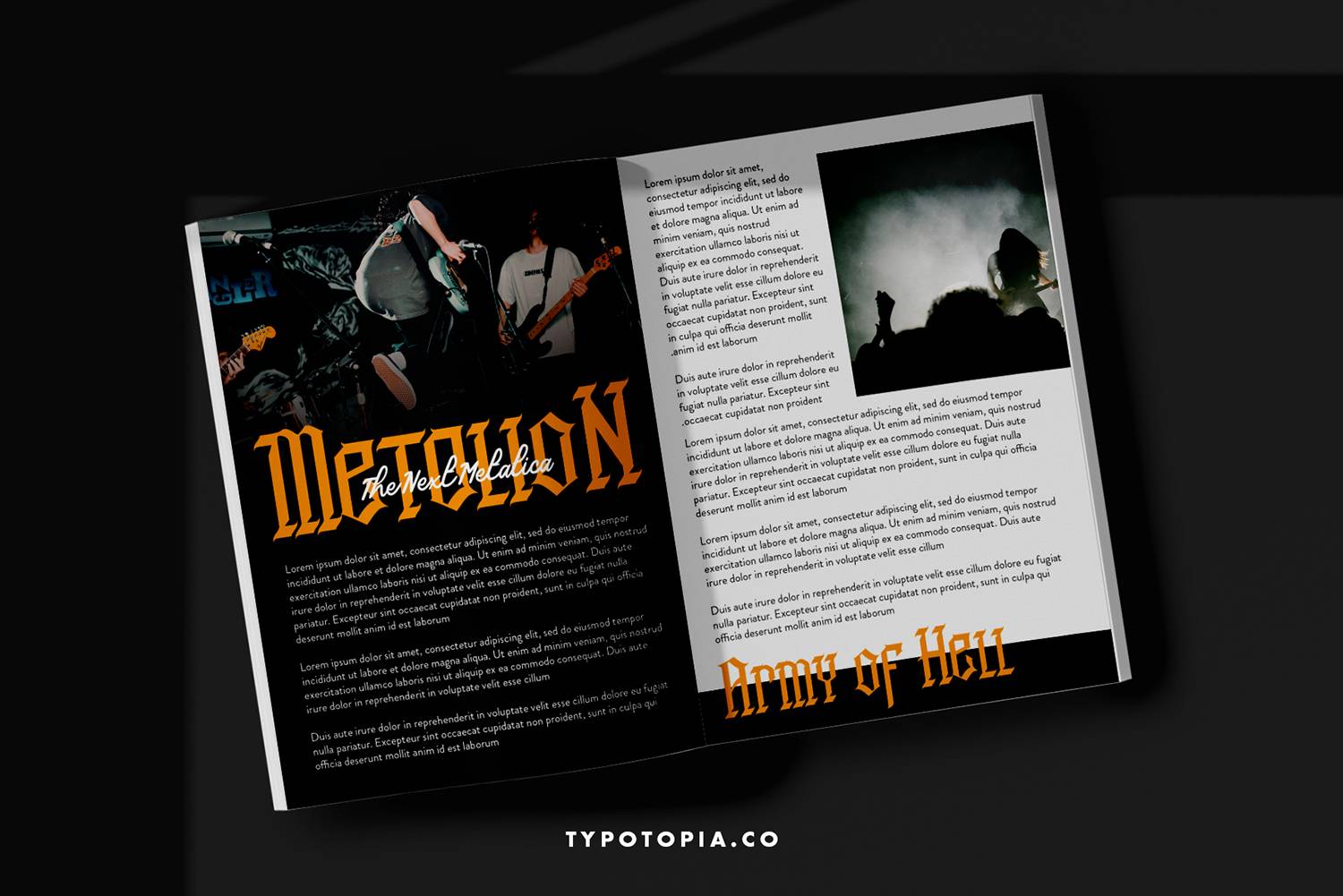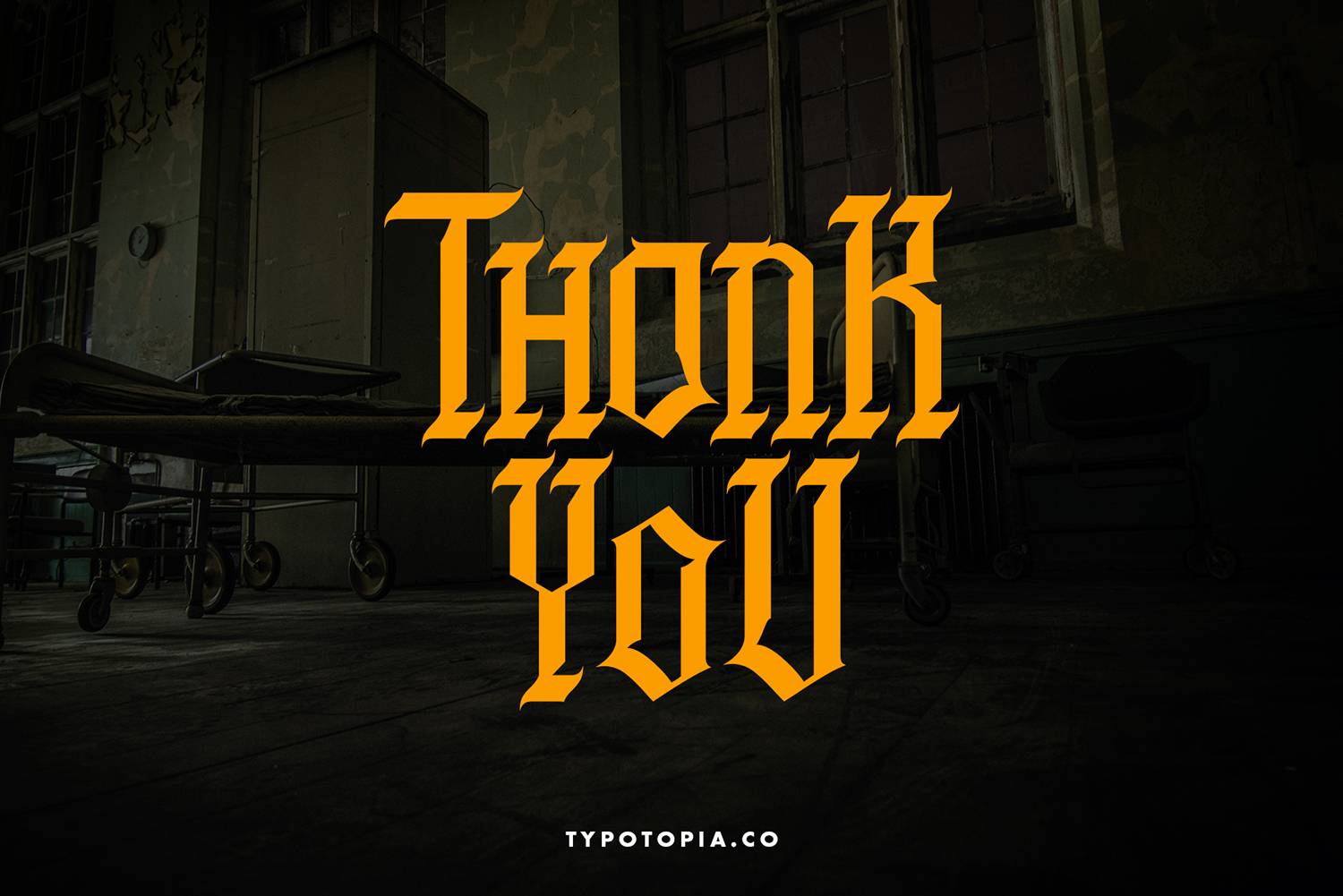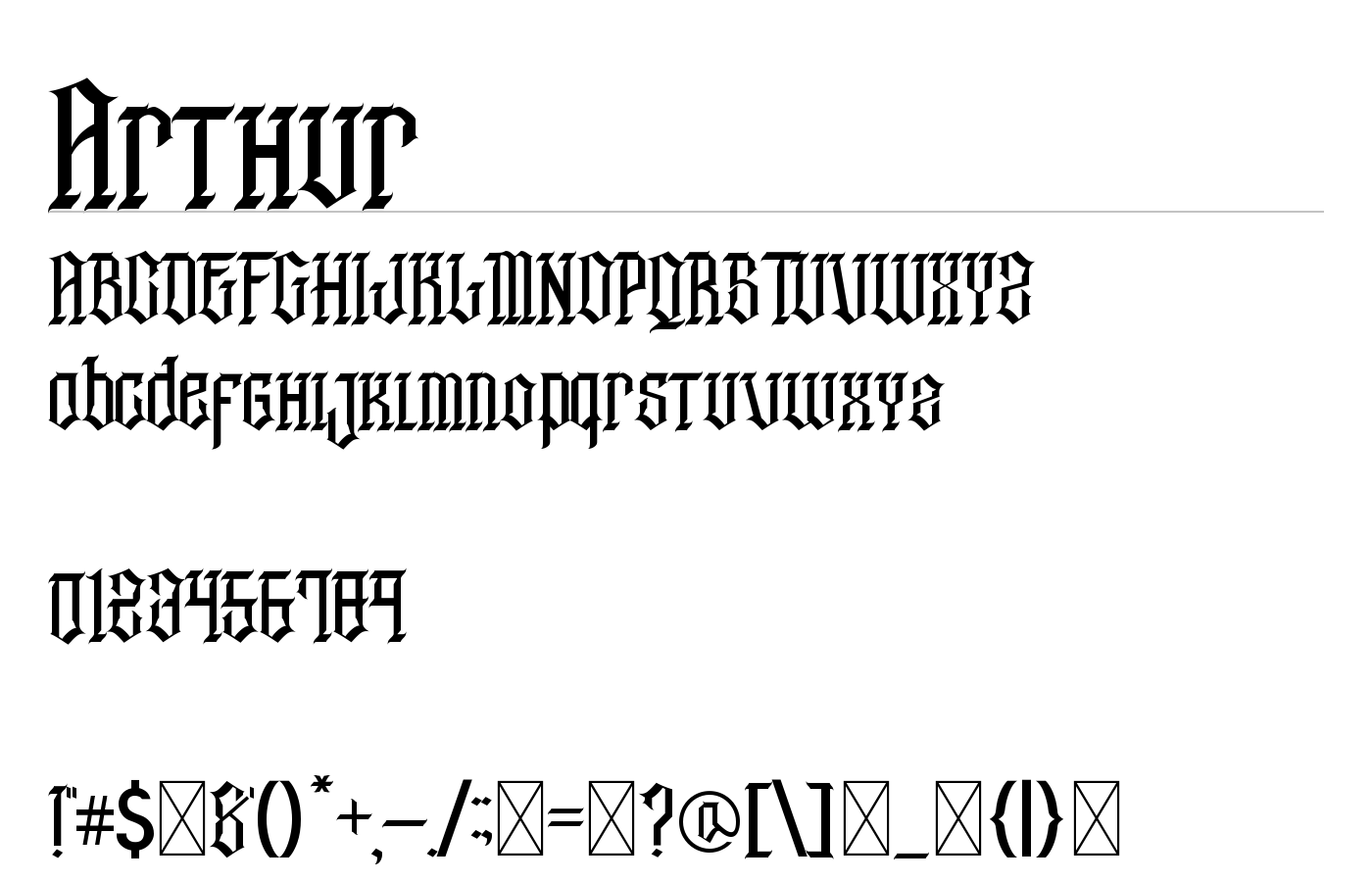
Arthur Blackletter is a bold, classic blackletter font with sharp, angular strokes and a dense, dramatic style. Its tall, narrow characters and strong contrast between thick and thin lines give it an old-world, gothic feel that works best for headlines, logos, or branding that seeks a historical or medieval touch. This font stands out in projects needing a striking, vintage look with an elegant yet powerful personality.
Arthur Blackletter Font
About Arthur Blackletter Font